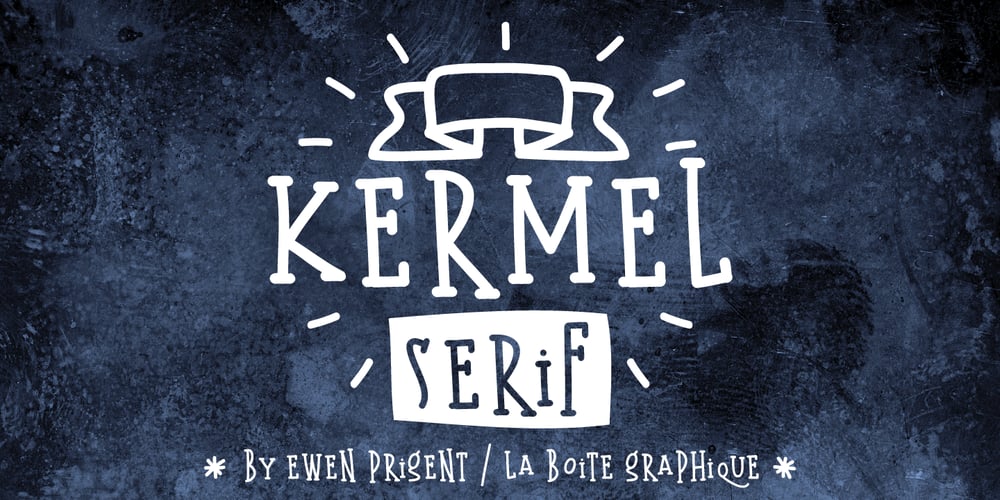
Kermel Serif Font Family was designed by Ewen Prigent and published by La BoĆ®te Graphique. Kermel Serif contains 2 styles and family package options. Kermel serif is a hand made font ideal for your graphic project. Usage recommendations: Title, short text, children’s book, poster, book cover, brochure, label, magazine